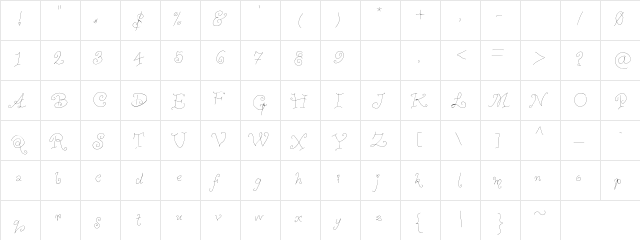
WhimsyWischy Medium
Design Context for WhimsyWischy Typeface
WhimsyWischy offers clean, dependable letterforms without strong stylistic allegiance, making it a practical choice for designers who need flexibility.
Pro Tip: Use WhimsyWischy in both headline and body roles to test its range before committing to a single application.